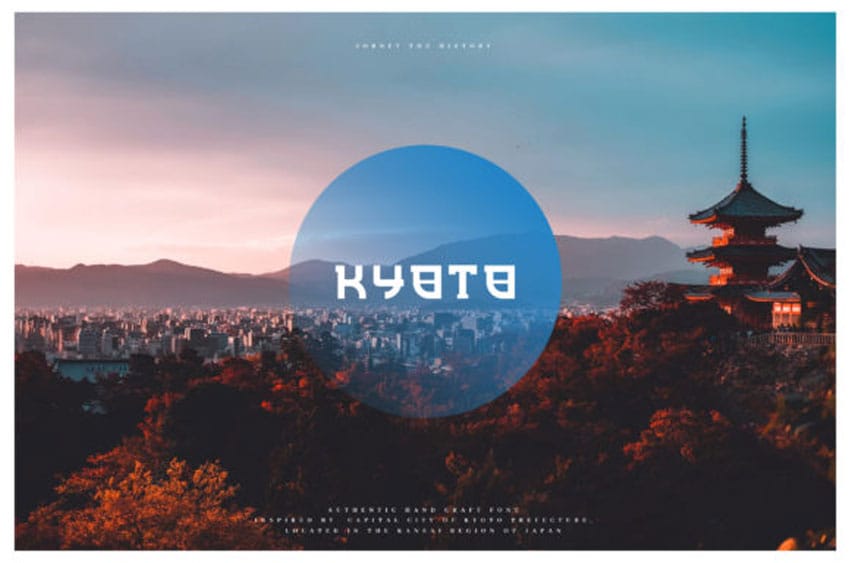
Kyoto Font is a bold and solid display font that has japanese traditional feeling.
It will elevate a wide range of design projects to the highest level, be it branding, headings, wedding designs, invitations, signatures, logos, labels, and much more!